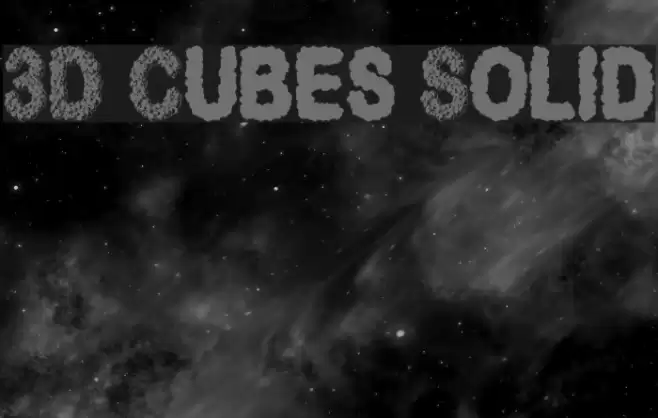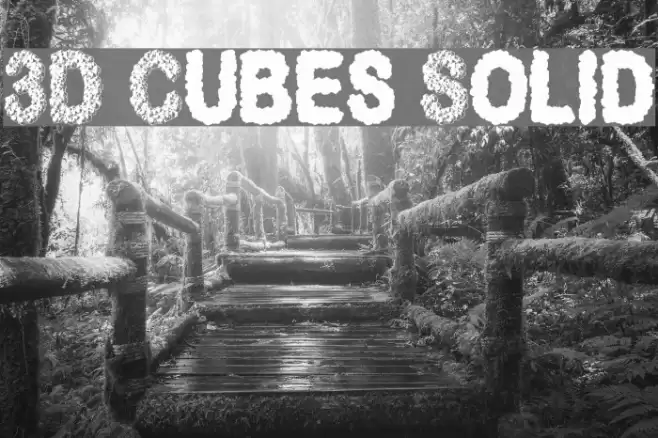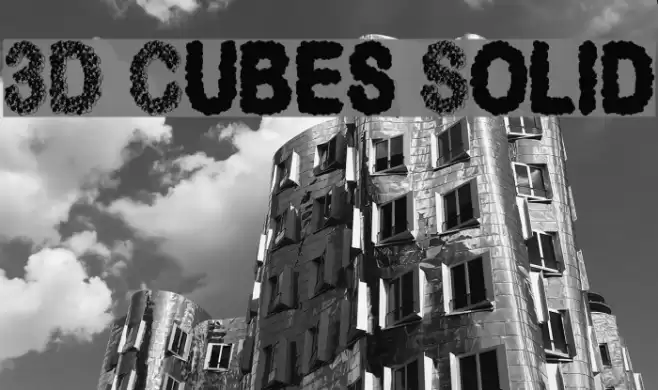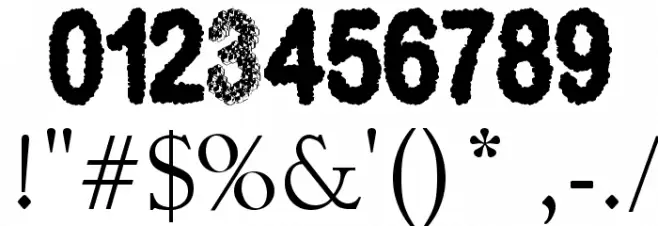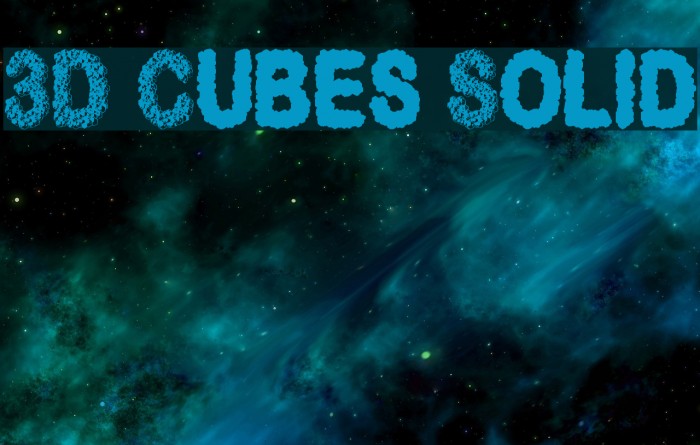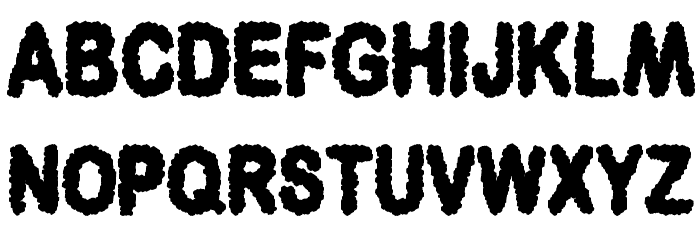
3D Cubes Solid Font
3D Cubes Solid Description
This font features a bold and textured design, reminiscent of a solid, three-dimensional cube structure. The characters are filled with a dense pattern that gives them a unique, tactile appearance. The uppercase letters are robust and commanding, while the numbers and special characters maintain the same boldness and texture. This font is highly decorative, making it stand out in any design. The texture within each character adds depth and a sense of movement, creating a dynamic visual effect. The font's style is both modern and playful, suitable for projects that require a strong visual impact.
A bold, textured font with a 3D cube-like appearance, perfect for decorative use from Decorative fonts.
- Proposed Projects: Ideal for posters, headlines, branding, and any design that requires a bold, eye-catching font.
- Overall Style: Modern, Decorative